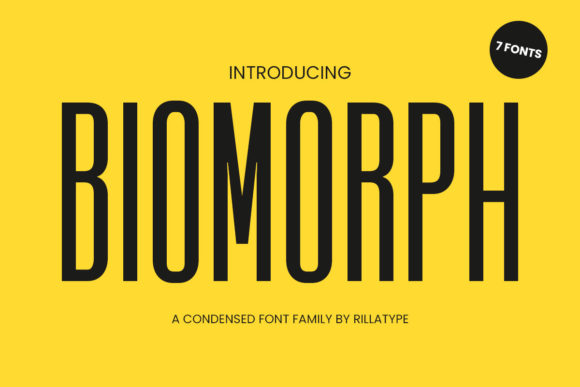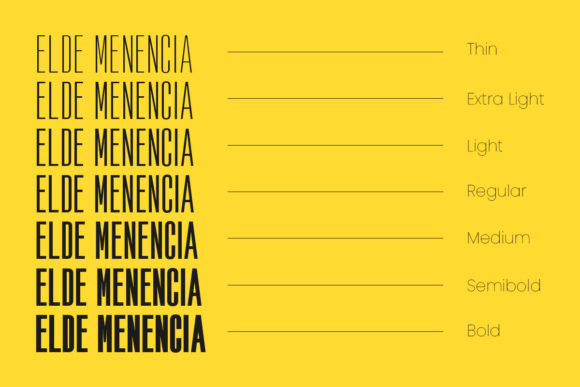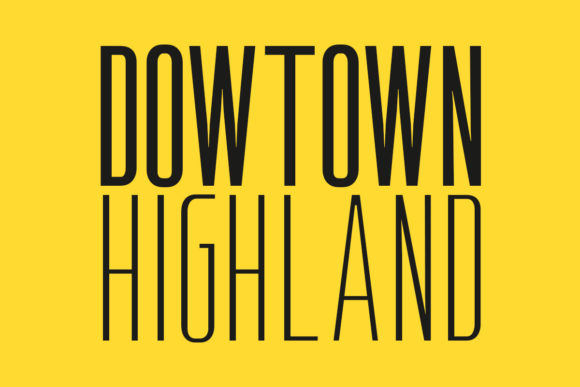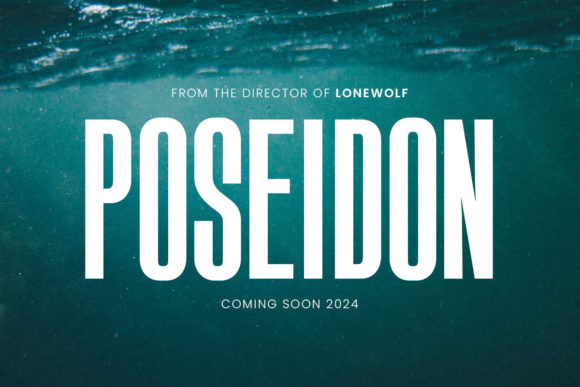
Biomorph Font: Bold & Modern Sans Serif for Logo Design
About the Biomorph Font
Let us introduce you to Biomorph Font, where timeless design meets modern craftsmanship. Biomorph is a brand new and condensed sans serif font family. This font is suitable for your projects, especially for branding, publishing, titles, book, magazine, websites, etc.
Biomorph is a font family that gives you the freedom to design as you like!
Biomorph Font Usage Examples
Biomorph Font Example